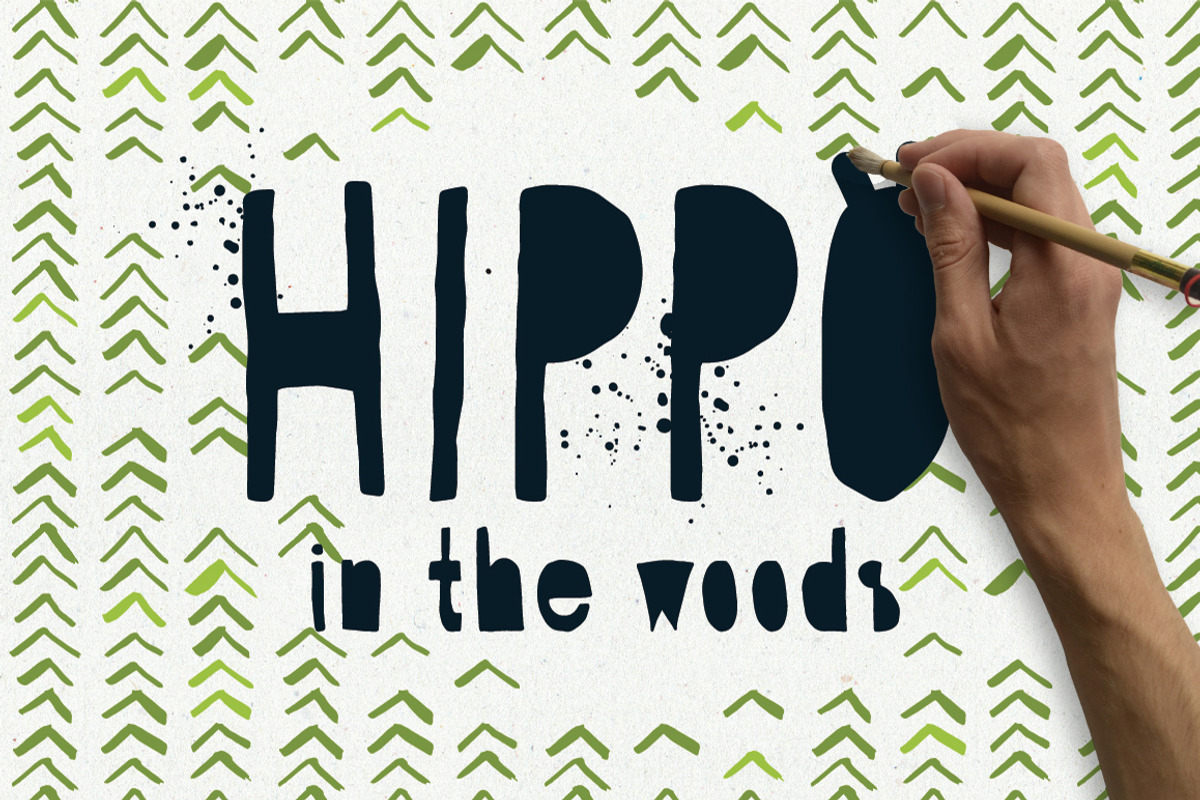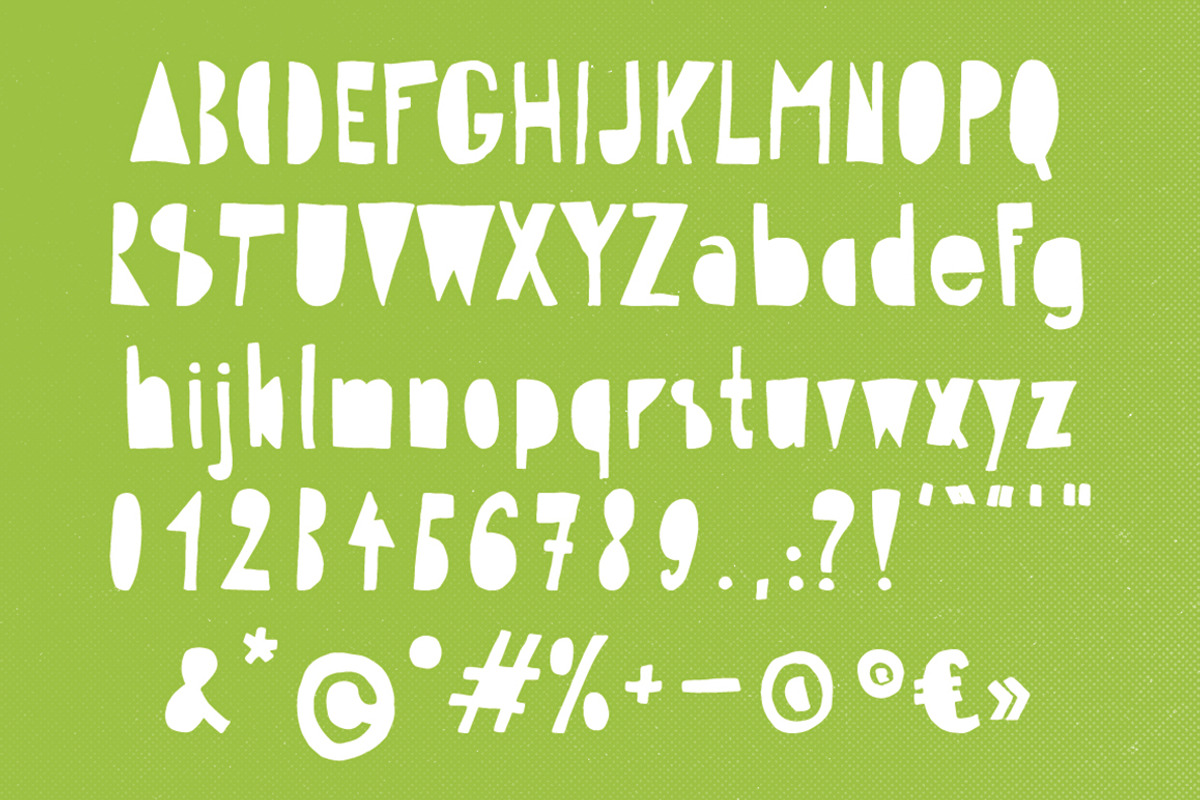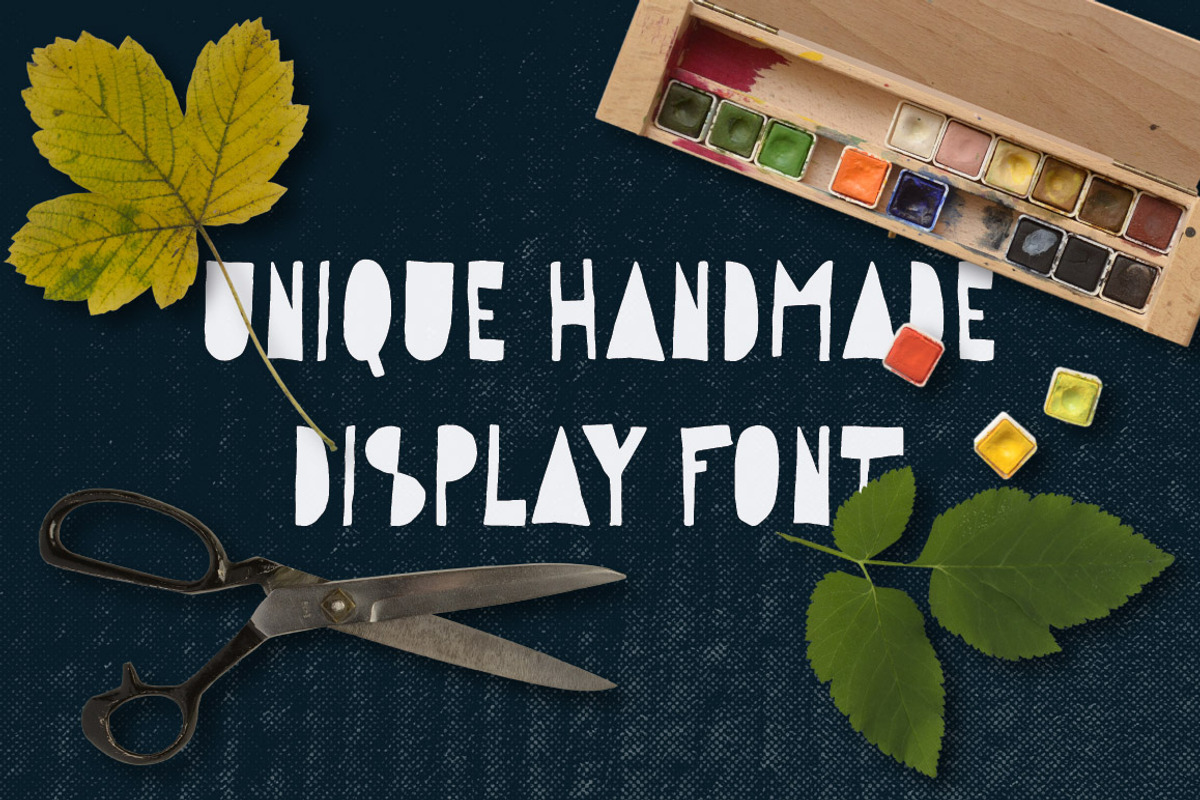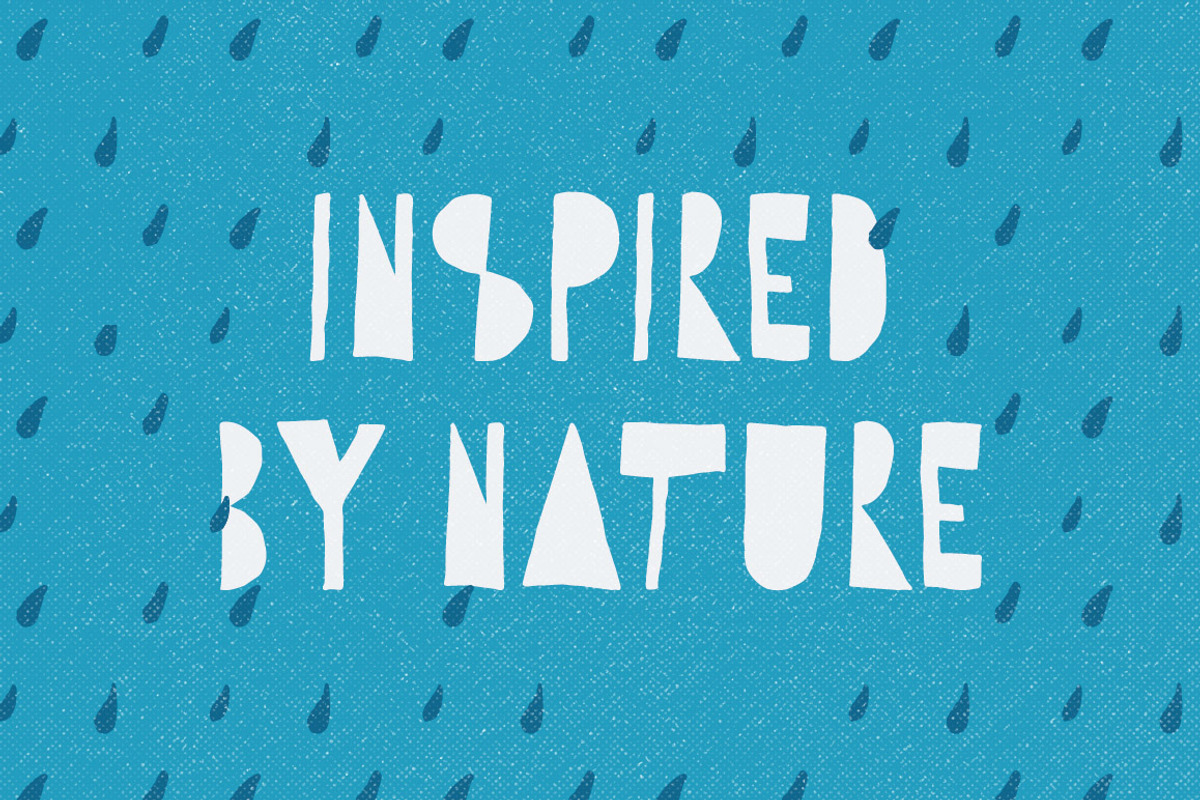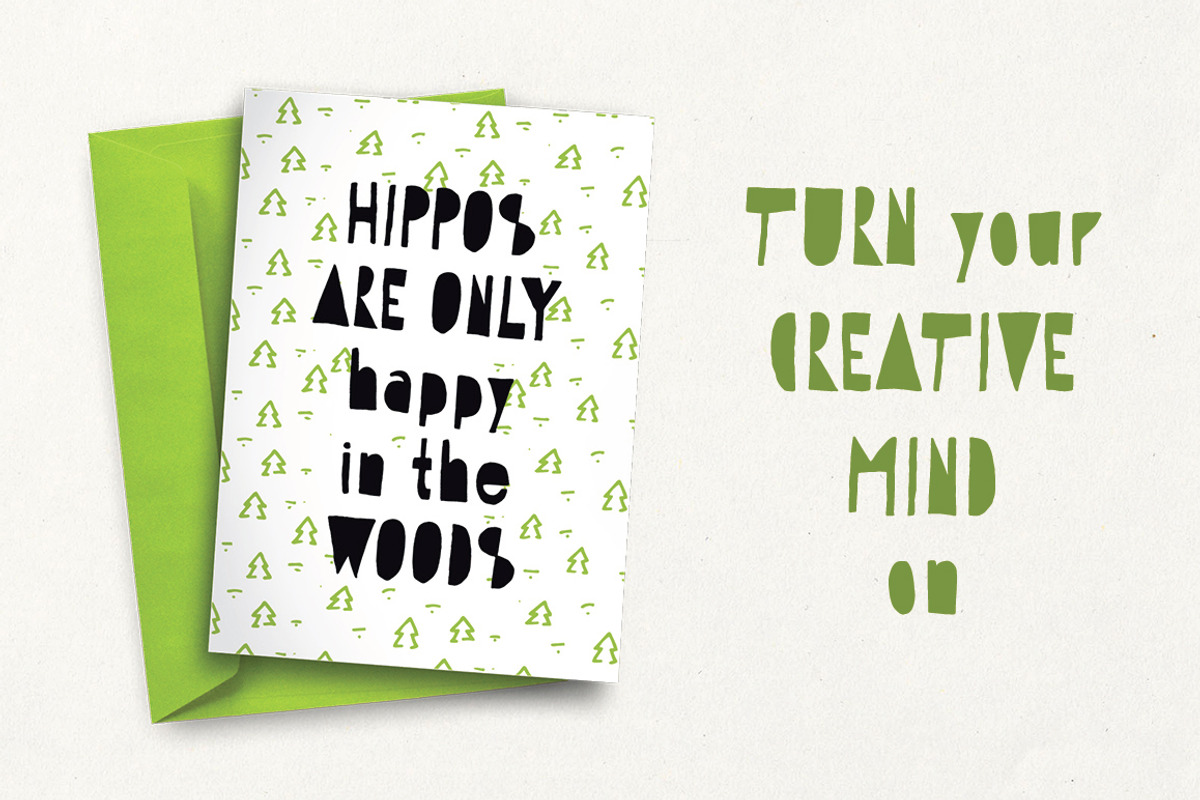
Hippo in the Woods - Organic Font
Hippo in the Woods - Organic Font by Vitek Graphic is a font selected for branding, posters, packaging, typography.
Why Hippo in the Woods - Organic Font is worth a look
Hippo in the Woods - Organic Font by Vitek Graphic fits naturally into Branding, posters, packaging, typography.